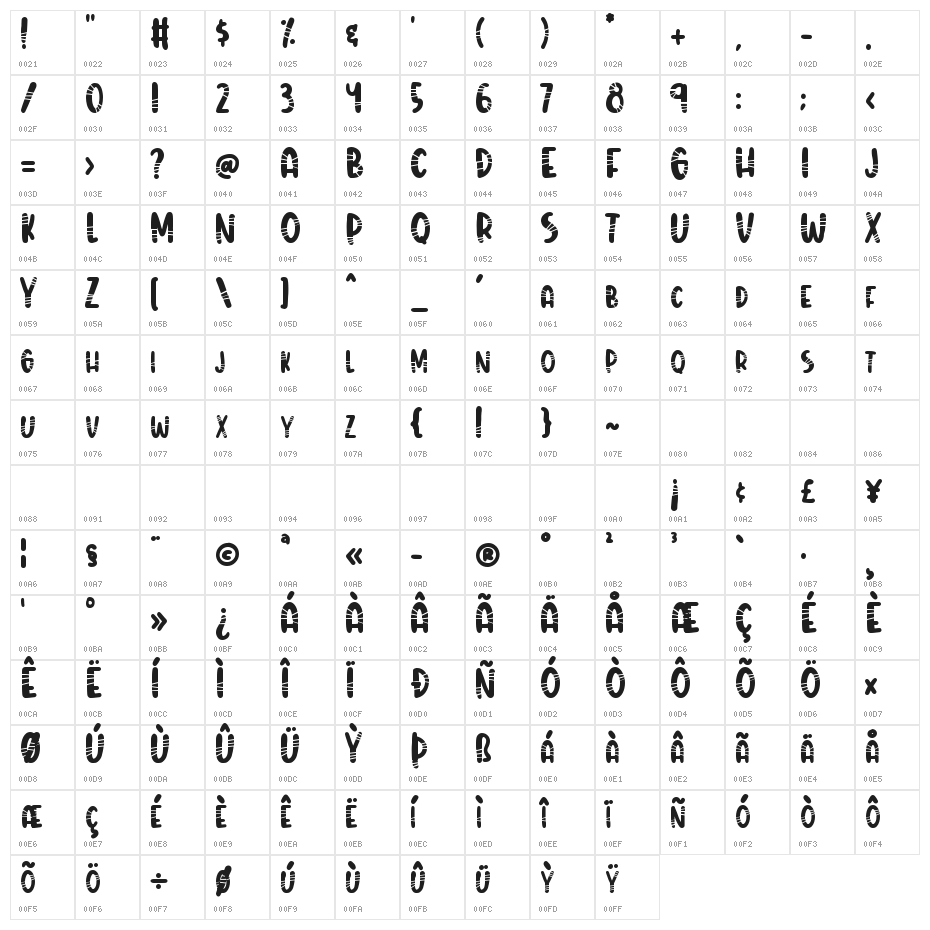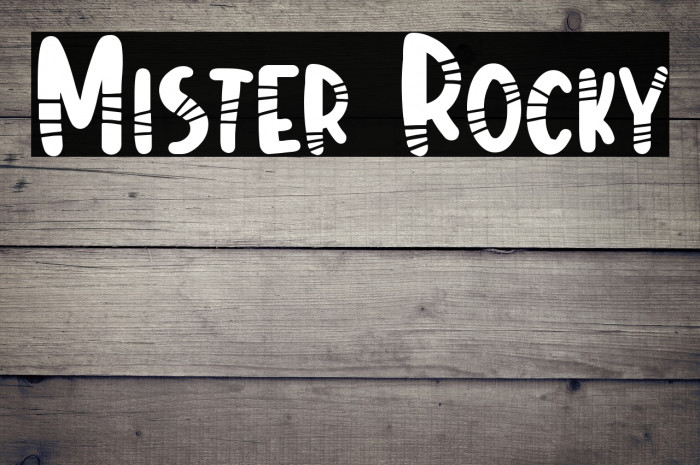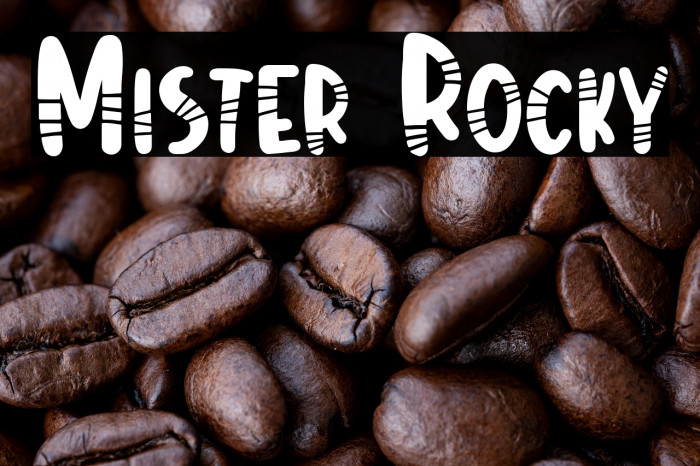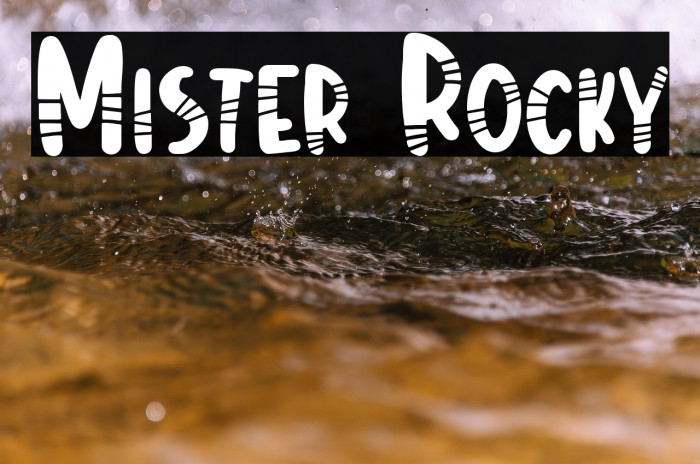
Mister Rocky Font
Mister Rocky Description
This font features a bold and playful design with a unique striped pattern running through each character. The letters are rounded and have a cartoonish, whimsical appearance, making them stand out with a fun and energetic vibe. The uppercase and lowercase letters maintain a consistent style, with the stripes adding an extra layer of visual interest. Numbers and special characters are also included, following the same design principles. The overall look is dynamic and eye-catching, suitable for projects that require a lively and informal touch.